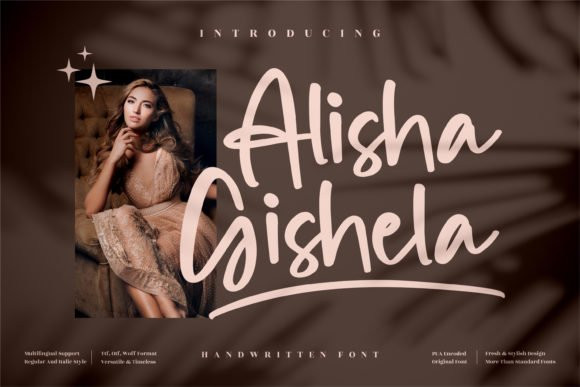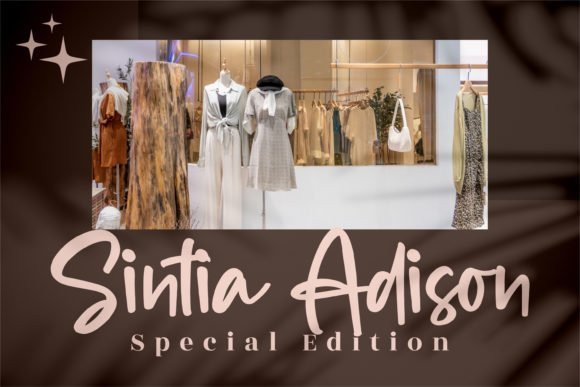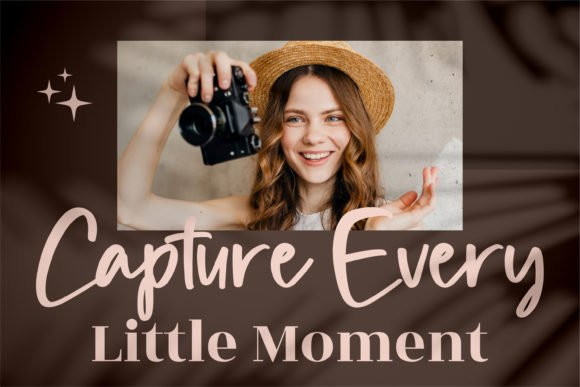
Alisha Gishela Font
Alisha Gishela is an elegant handwritten font that will add a stylish touch to your luxury projects. Suitable for logos, branding projects, homeware designs, product packaging, book covers, cards, photography, special events and much more.